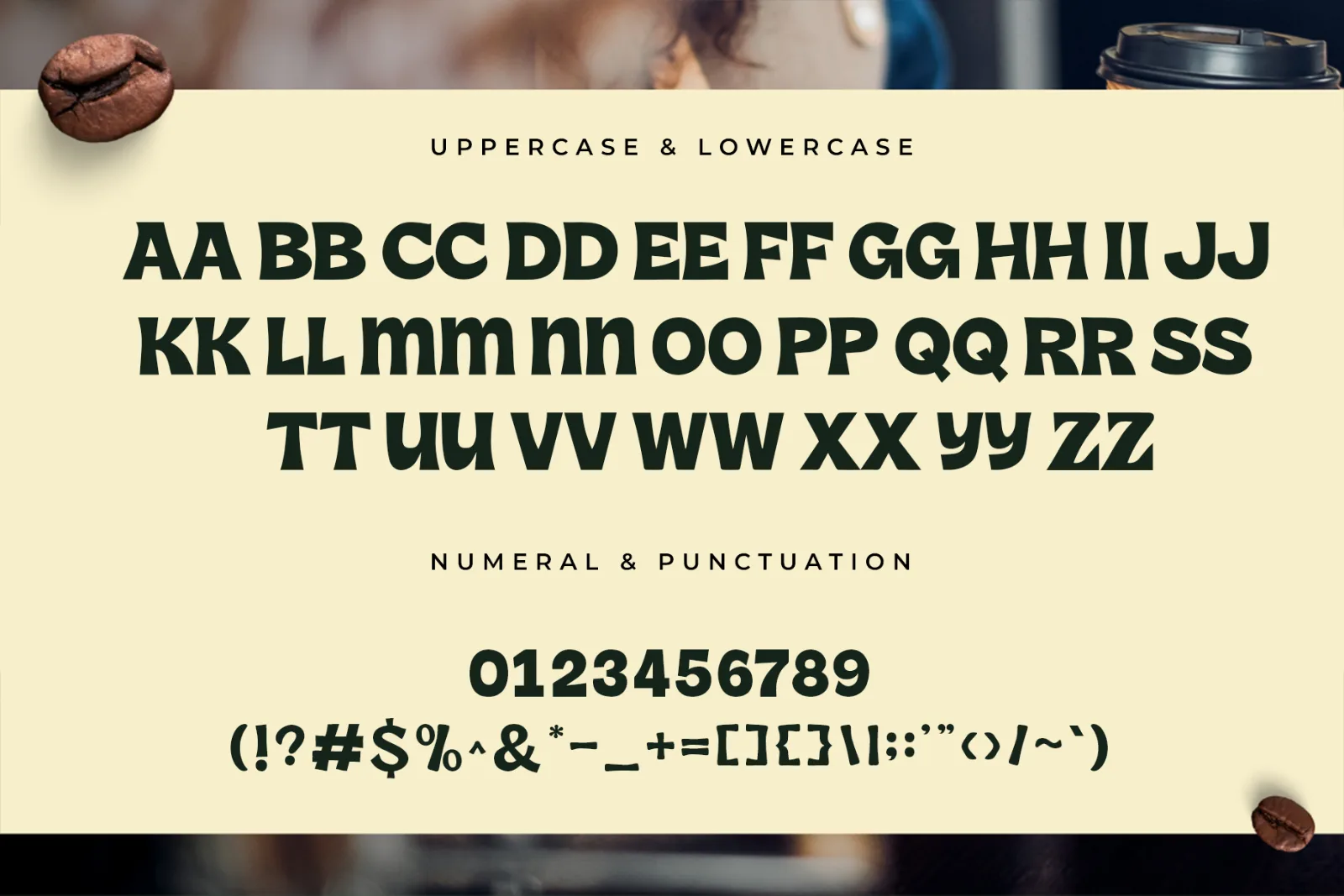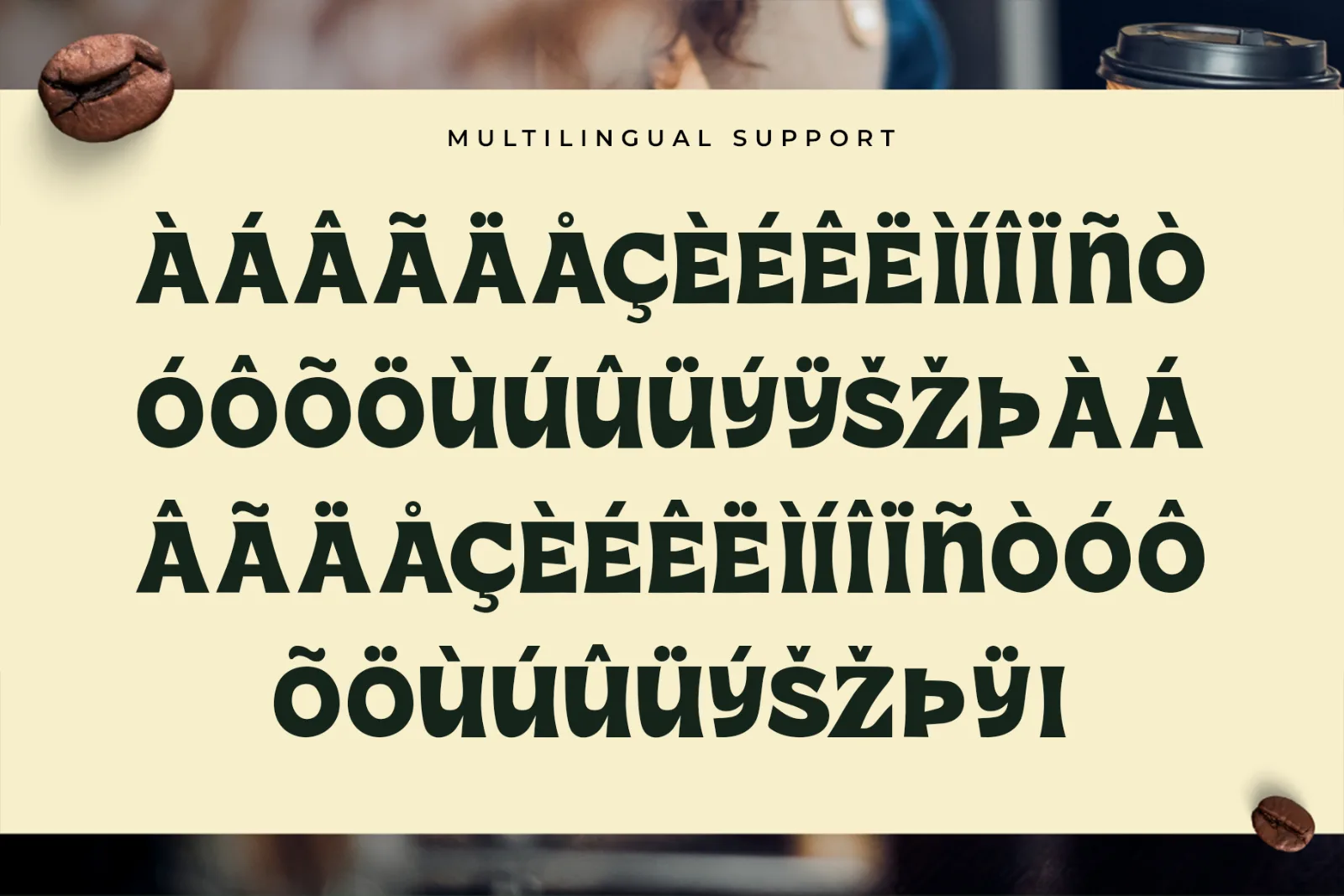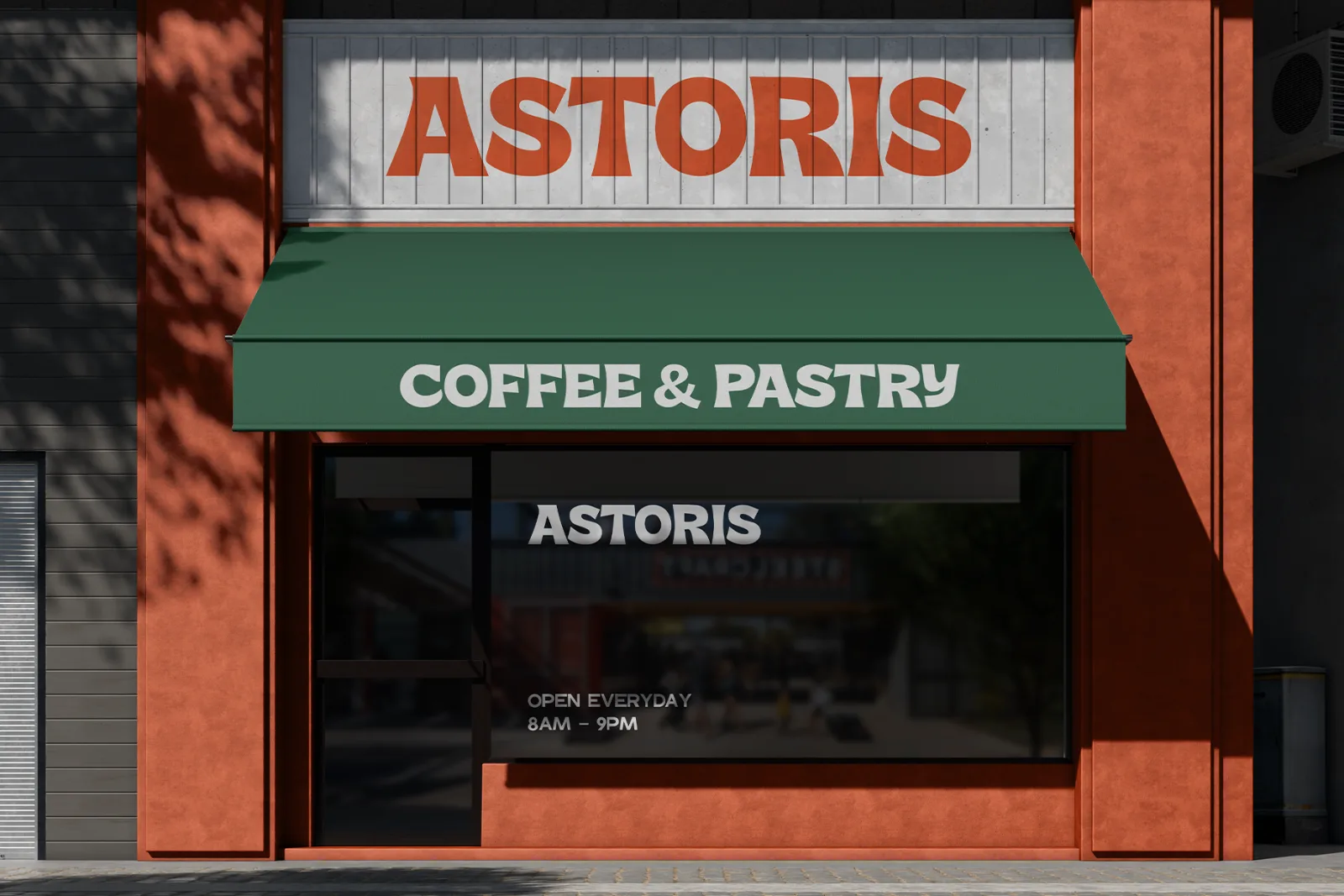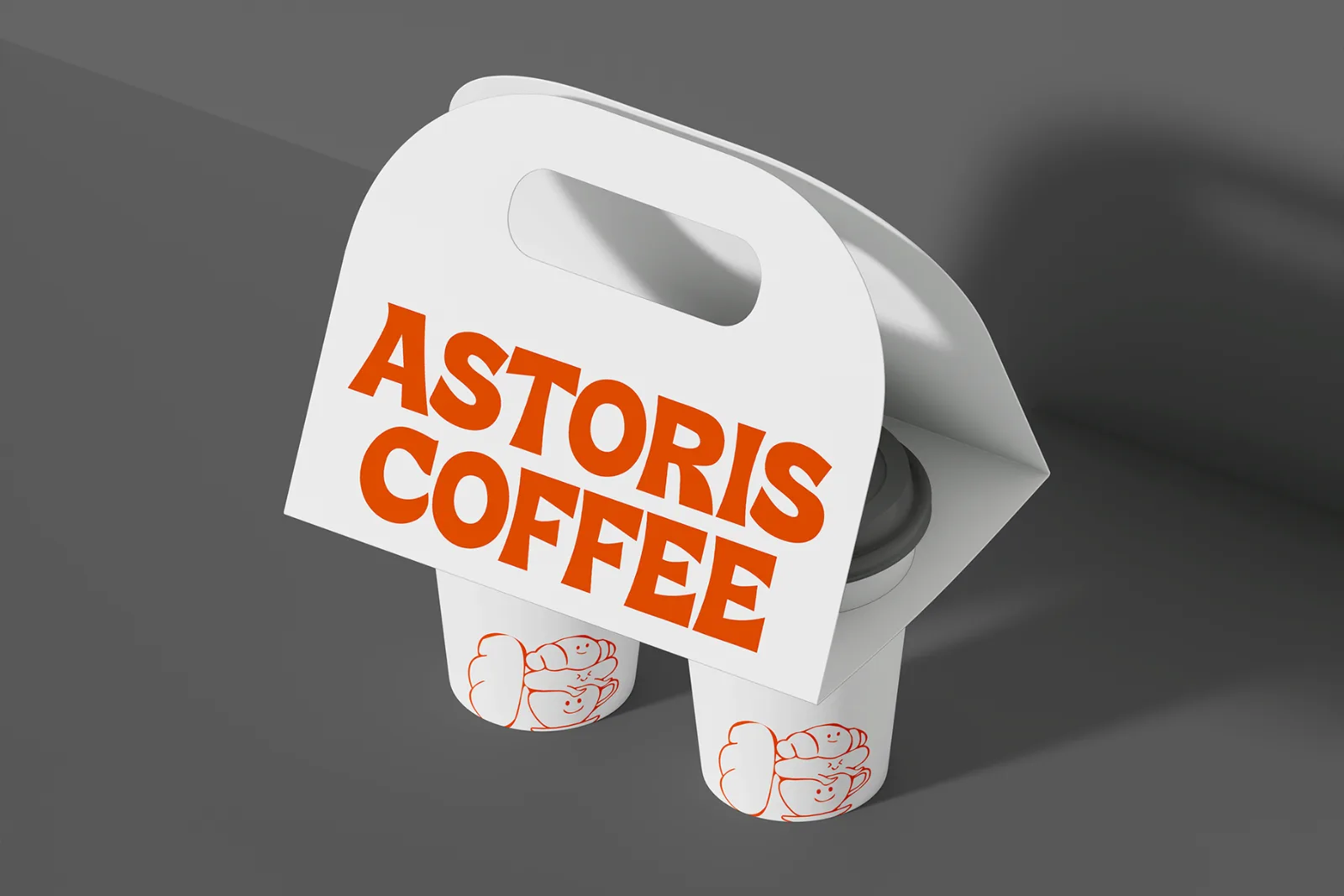
Morning Latte – Retro Coffee Display Font
Morning Latte is a playful retro display font inspired by cozy coffee shops, vintage café graphics, and cheerful morning vibes. Its bold letterforms, quirky shapes, and warm personality give every design a friendly and memorable look.
Designed for eye-catching branding and display typography, Morning Latte works beautifully for coffee shop identities, packaging, posters, menus, labels, merchandise, social media, and other creative projects that need a fun retro character.
Perfect for:
- Coffee Shop Branding
- Café Logos
- Packaging Design
- Posters & Headlines
- Menu Design
- Labels & Stickers
- T-Shirts & Merchandise
- Social Media Graphics
- Lifestyle Branding
- Food & Beverage Design
- Retro Posters
- Creative Advertising